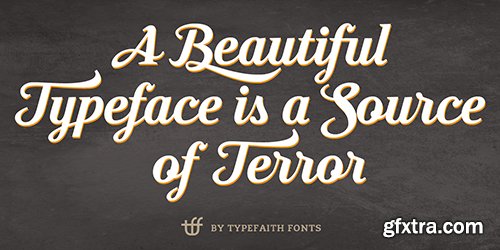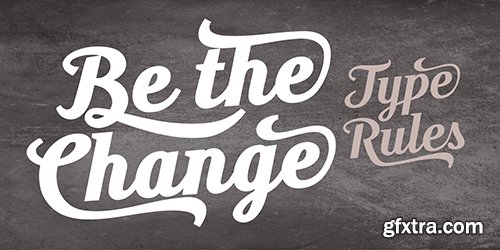
Moonface Script Fonts
Moonface Script is a flowing script with lovely swashes. It is based on the 20th Century Packaging typography. Moonface Script is a characteristic font with a retro feel. It contains a full set of ligatures, alternatives, swashes and special characters to end